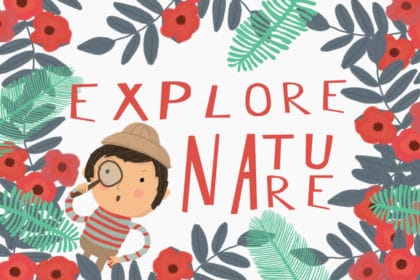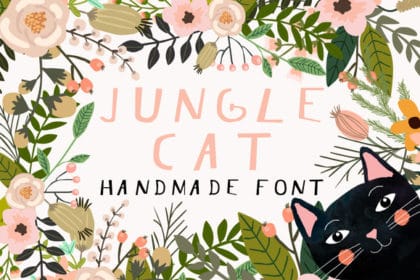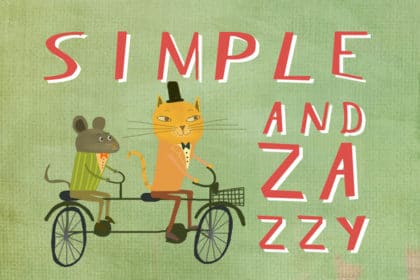
The Jungle Cat is a handwritten font. Imperfect lines and zazzy characters. Combines very well with retro designs and vintage compositions.
Can be used for various purposes such as headings, signature, logos, wedding invitation, t-shirt, letterhead, posters, badges etc.